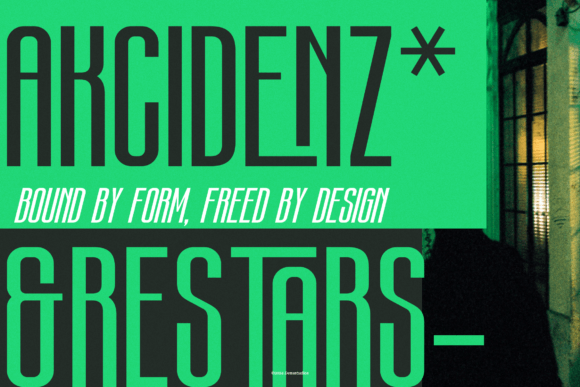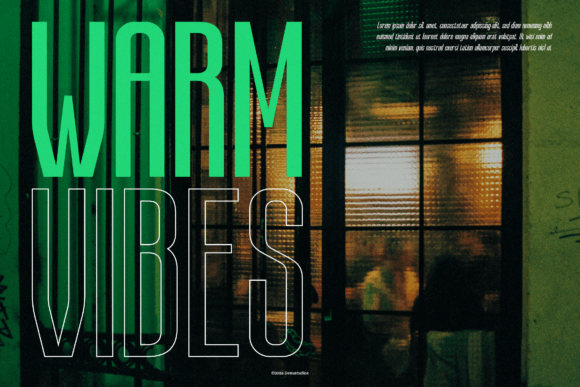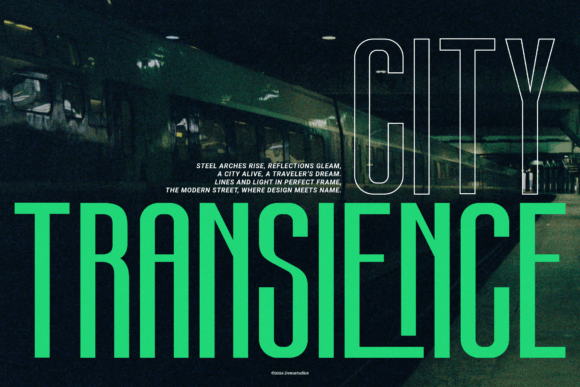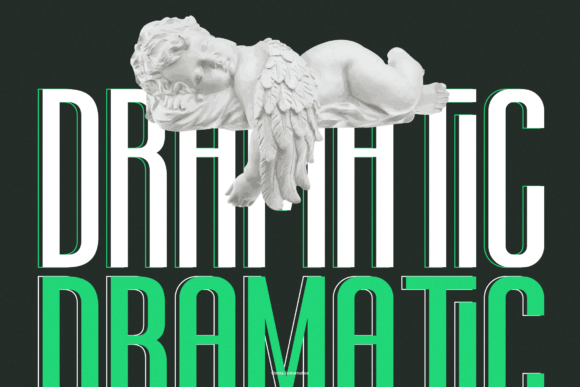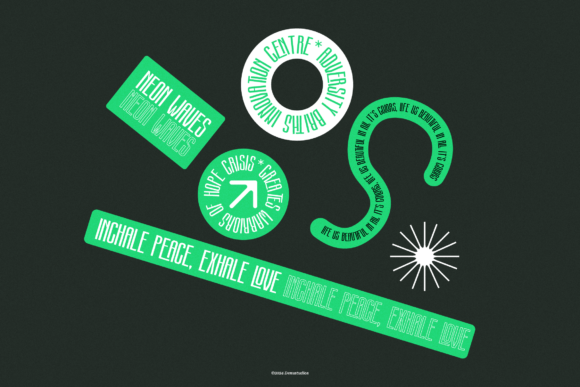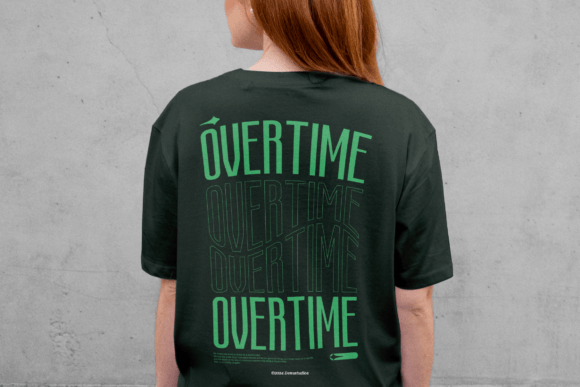
Unleash Your Creativity with Buckjack Font: The Ultimate Choice for Modern Designs
In the world of typography, fonts play a crucial role in conveying the tone and personality of a design. When it comes to creating modern, high-energy projects, the right font can make all the difference. Introducing Buckjack, a sleek condensed sans serif typeface that’s specifically designed to make a bold impact. With its sharp, professional aesthetic and contemporary edge, Buckjack is the perfect choice for designers and crafters looking to add a touch of confidence and versatility to their work.
What Makes Buckjack Stand Out?
Buckjack is more than just a font – it’s a design statement. With over 280 glyphs, ligatures, alternates, and multilingual support, this font is designed to cater to a wide range of creative needs. Whether you’re working on posters, headlines, branding, or edgy designs that demand attention, Buckjack delivers a level of sophistication and elegance that’s hard to match.
Key Features of Buckjack Font
- Condensed Sans Serif Design: Buckjack’s sleek and condensed design makes it perfect for headlines, titles, and short paragraphs of text. Its sans serif style ensures a clean and modern look that’s easy on the eyes.
- Over 280 Glyphs: With a vast range of glyphs, Buckjack offers a high degree of versatility and flexibility. From basic characters to special symbols and ligatures, this font has everything you need to create stunning designs.
- Ligatures and Alternates: Buckjack’s ligatures and alternates allow you to add a touch of creativity and personality to your designs. Experiment with different combinations to create unique and eye-catching text.
- Multilingual Support: Buckjack supports multiple languages, making it an excellent choice for global brands and designers who work with international clients.
Use Cases for Buckjack Font
Buckjack’s versatility makes it suitable for a wide range of design applications. Here are some use cases where Buckjack truly shines:
- Posters and Flyers: Create bold and attention-grabbing posters and flyers with Buckjack’s condensed design and high-impact aesthetic.
- Headlines and Titles: Use Buckjack to create stunning headlines and titles that demand attention. Its sans serif style ensures a clean and modern look that’s perfect for digital and print media.
- Branding and Logo Design: Buckjack’s confidence and versatility make it an excellent choice for branding and logo design. Create a lasting impression with this font’s sharp and professional aesthetic.
- Edgy Designs: Buckjack’s contemporary edge makes it perfect for edgy designs that require a bold and daring approach. Use it to create striking visuals that leave a lasting impact.
Why Choose Buckjack Font?
In a world where typography plays a crucial role in design, Buckjack offers a unique combination of style, versatility, and professionalism. Here are some reasons why Buckjack stands out from the crowd:
- Unique Design: Buckjack’s condensed sans serif design is unlike any other font on the market. Its sleek and modern aesthetic ensures a bold impact that’s hard to ignore.
- High Degree of Versatility: With over 280 glyphs, ligatures, and alternates, Buckjack offers a high degree of flexibility and creativity. Experiment with different combinations to create stunning designs.
- Multilingual Support: Buckjack’s multilingual support makes it an excellent choice for global brands and designers who work with international clients.
In conclusion, Buckjack is a game-changing font that’s specifically designed to make a bold impact. With its sleek condensed design, high degree of versatility, and multilingual support, this font is perfect for modern, high-energy projects. Whether you’re a designer, crafter, or simply someone who appreciates great typography, Buckjack is an excellent choice for anyone looking to add a touch of confidence and sophistication to their work. So why wait? Unleash your creativity with Buckjack Font and take your designs to the next level!